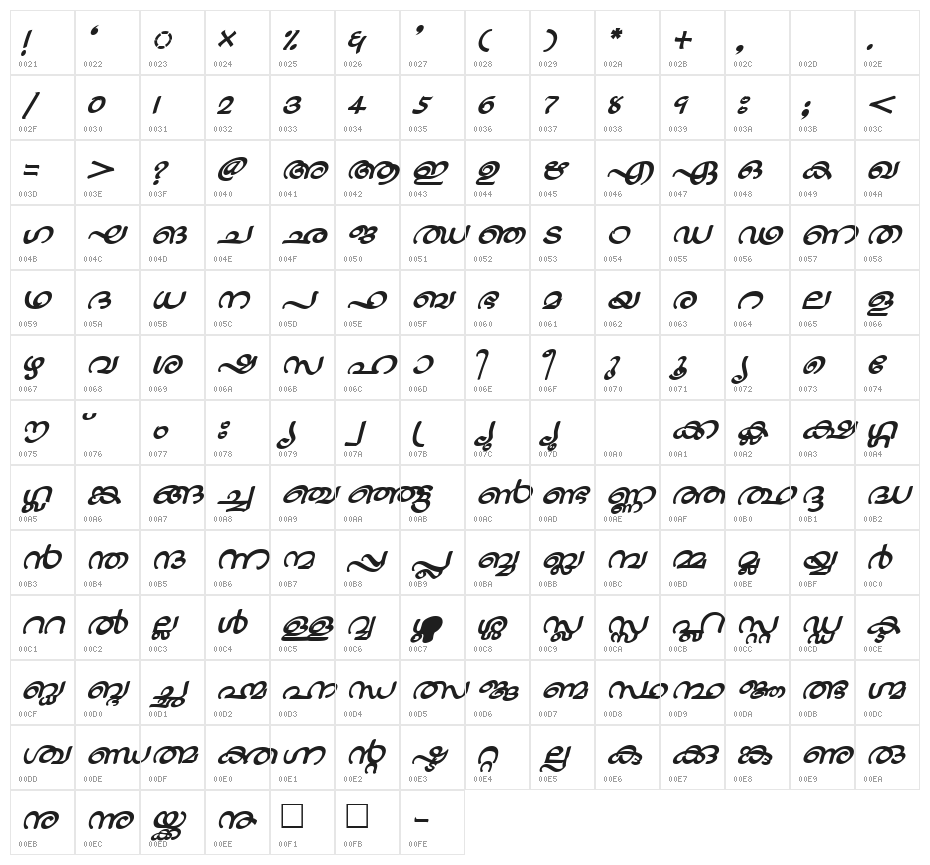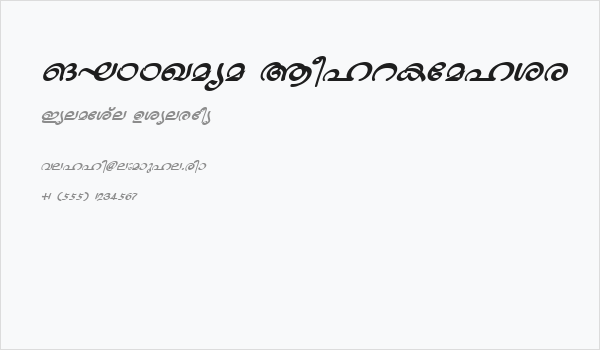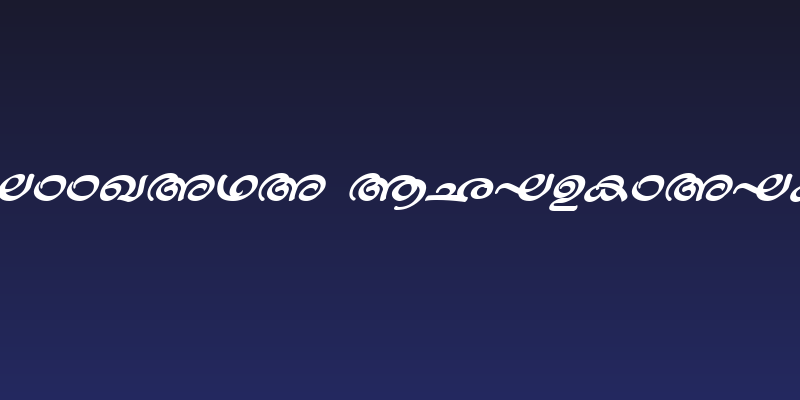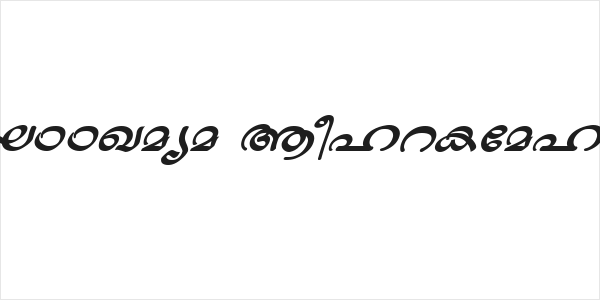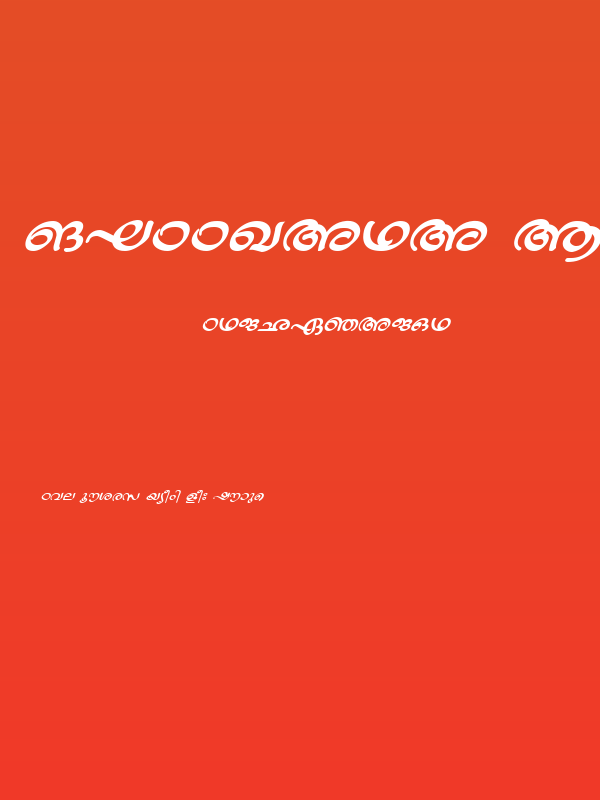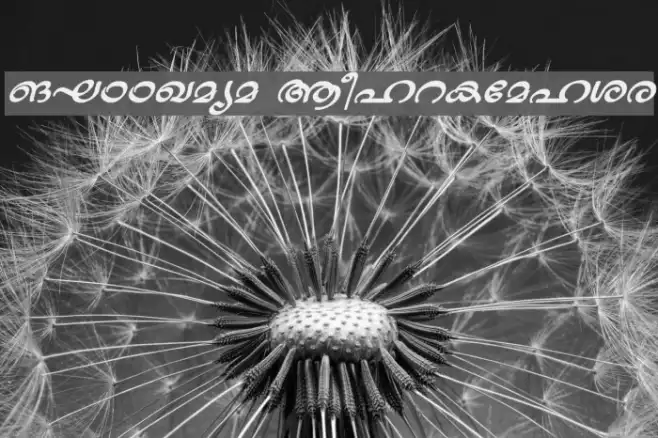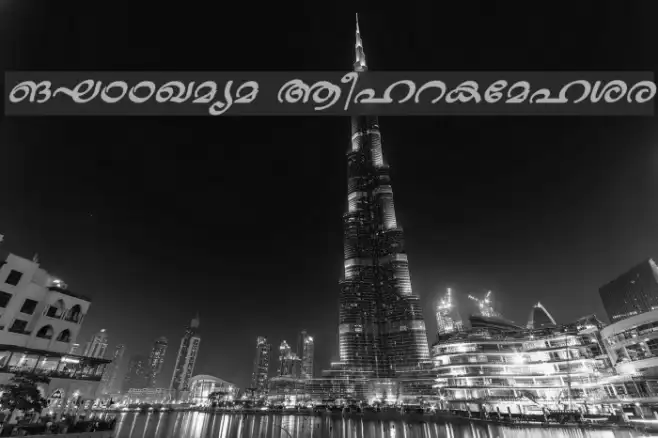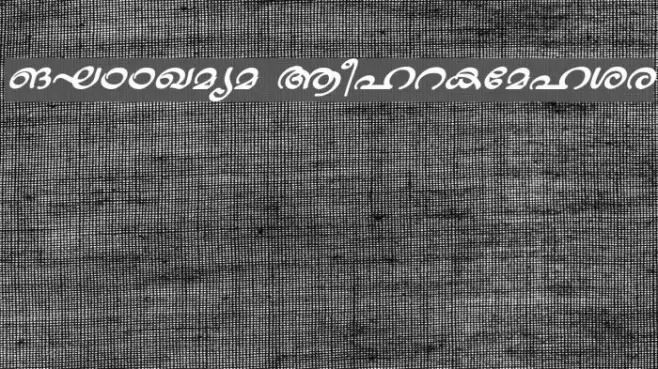
ML-TTJaya BoldItalic Font
ML-TTJaya BoldItalic Description
This font features a bold and italicized style with a strong presence. The characters are designed with a flowing script-like quality, giving it an elegant and dynamic appearance. The strokes are thick, providing a high contrast that enhances readability while maintaining a decorative flair. The font includes a full set of numerals and special characters, making it versatile for various uses. Its unique style is particularly suited for languages that use similar scripts, offering a cultural and artistic touch.
| Use Case | Headlines, Artistic designs, Cultural projects |
| Proposed Projects | Ideal for cultural projects, artistic designs, and decorative headings. |